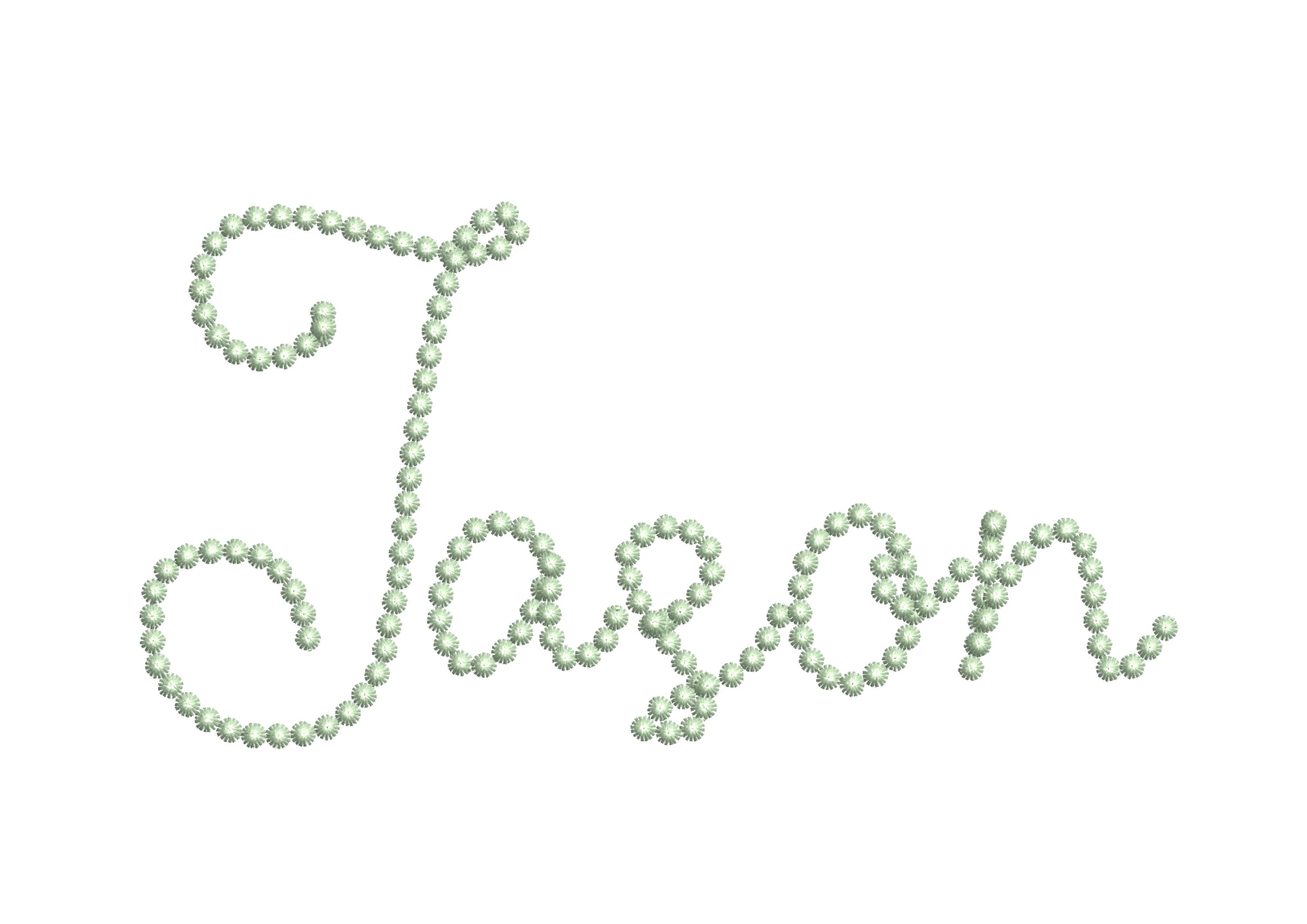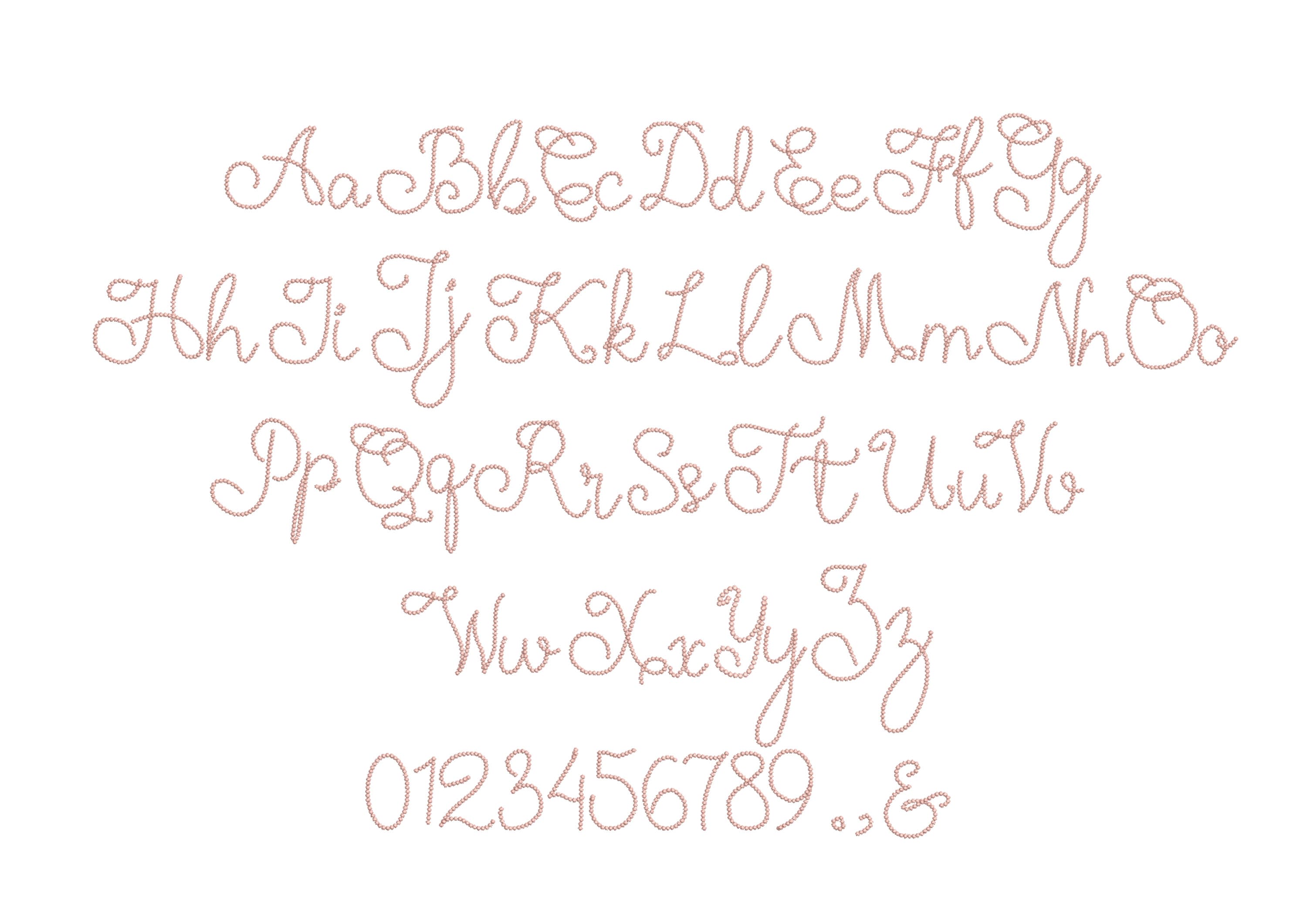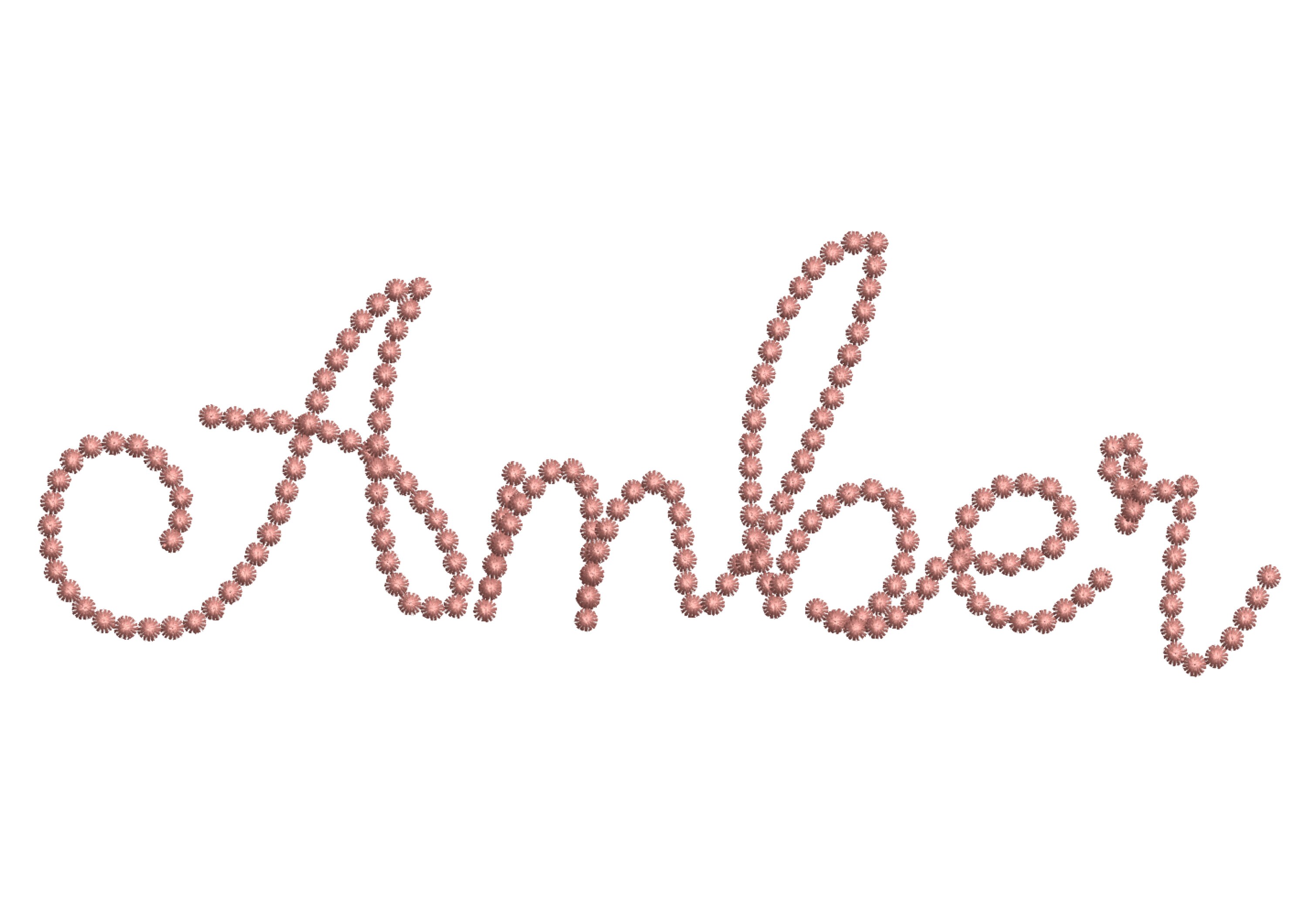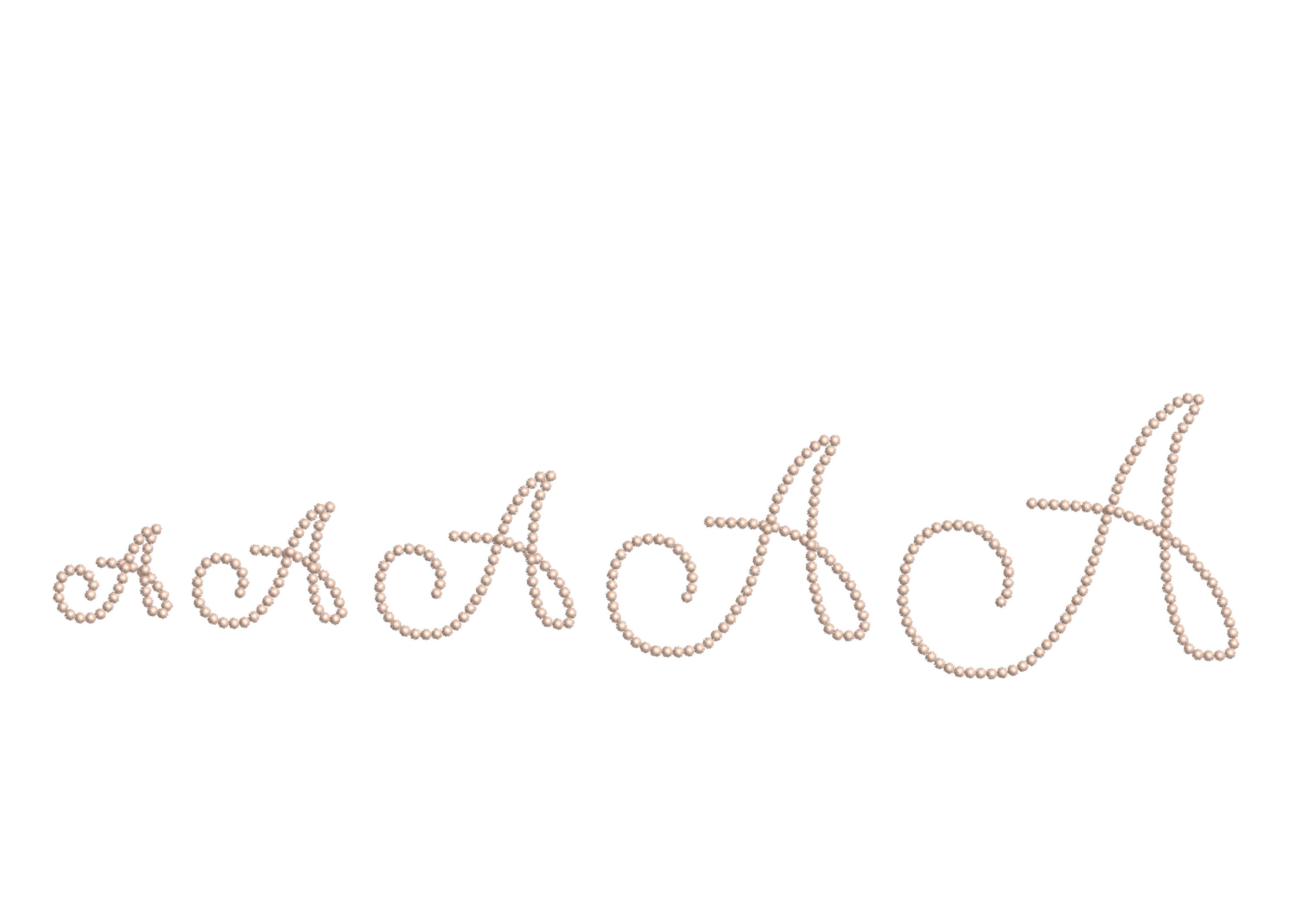
Pearl stitch script handwritten cursive Font alphabet machine embroidery designs assorted sizes from 1.4 thru 4.1 inches monogram name, BX included
Uppercase and lowercase letters, numbers, punctuation.
OH MY GOODNESS! I love this font, made the stitching look like pearls.